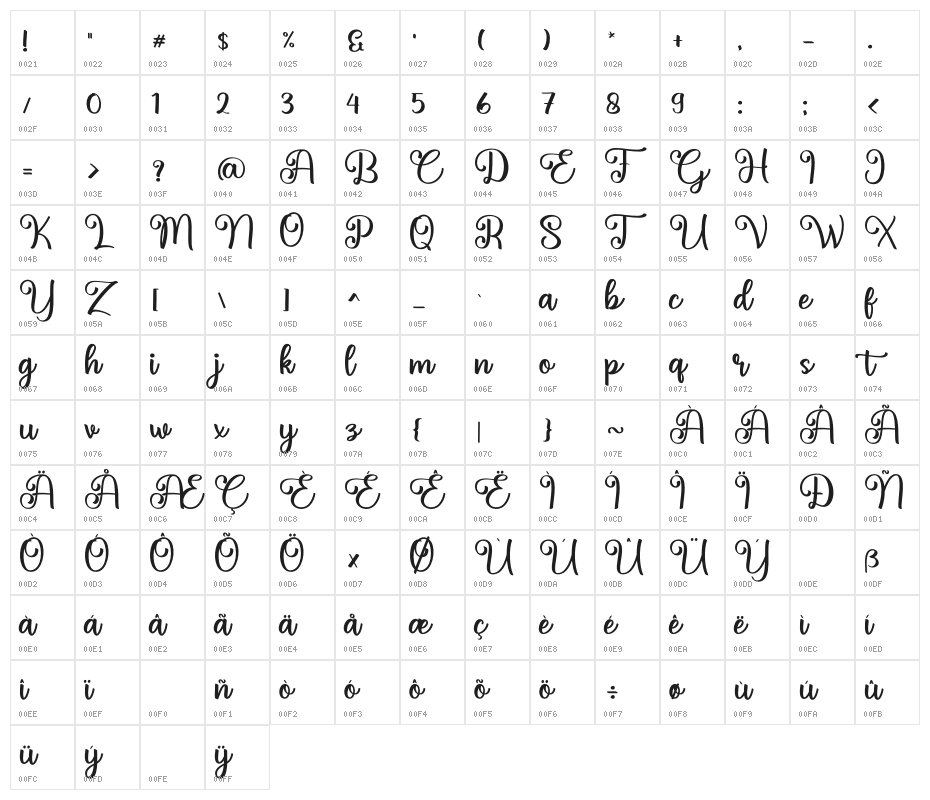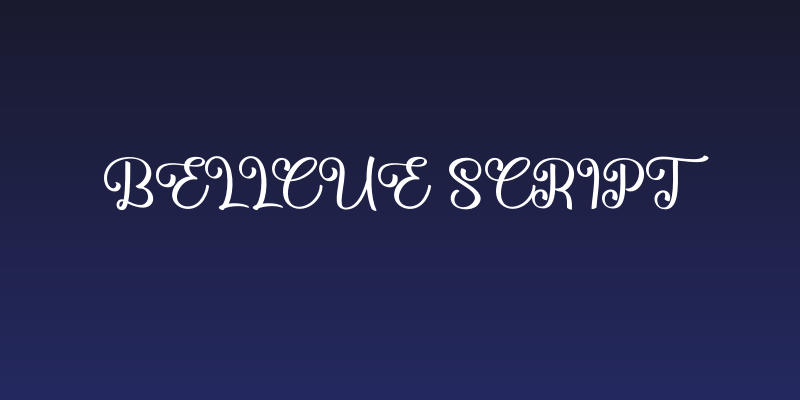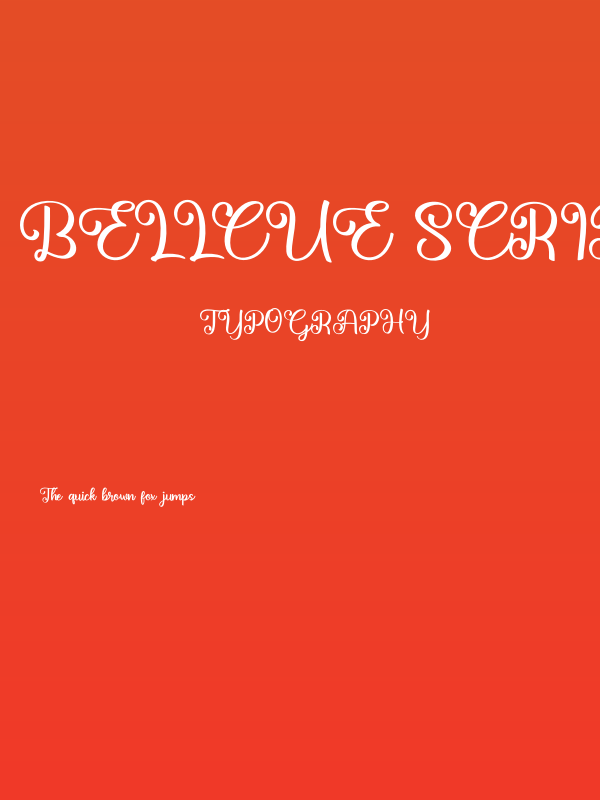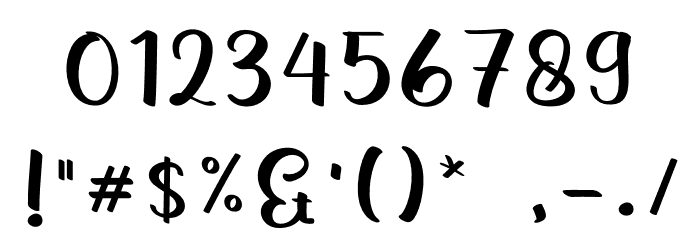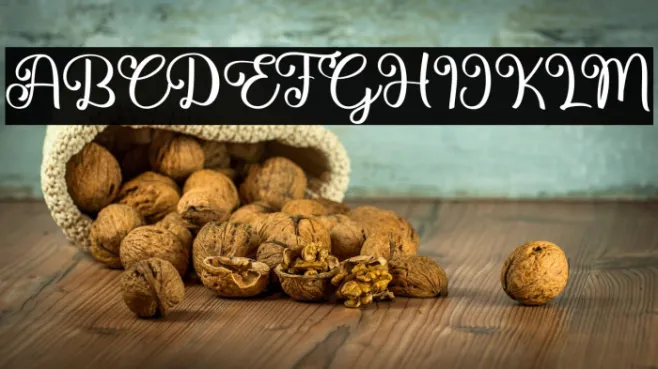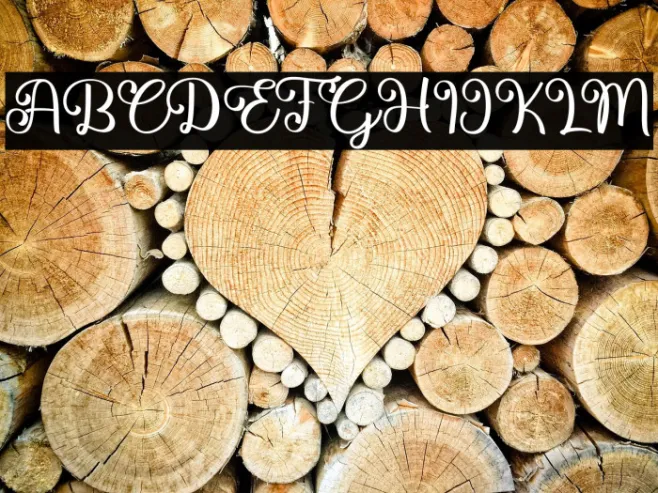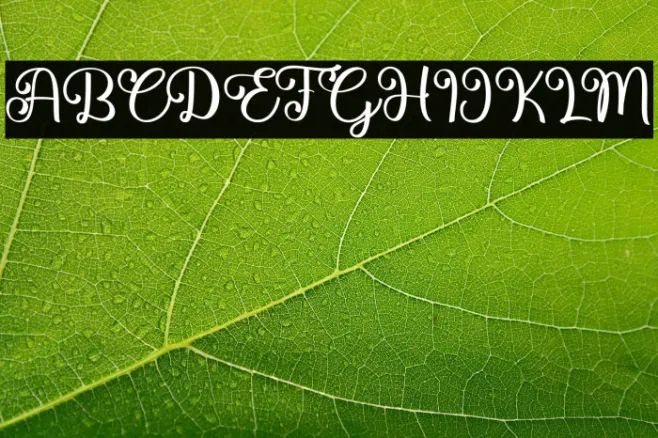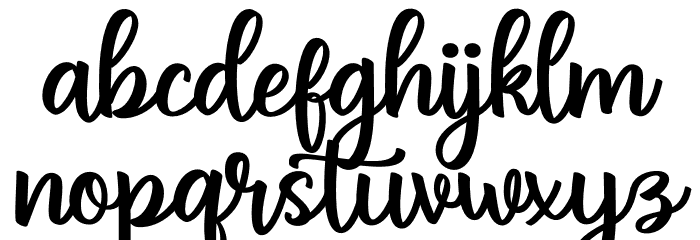
Bellcue Script Font
Bellcue Script Description
This script font exudes elegance and fluidity, characterized by its flowing, cursive style. The uppercase letters are ornate, with intricate loops and swirls that add a touch of sophistication. The lowercase letters maintain a consistent flow, enhancing readability while retaining a stylish flair. The numbers are bold and clear, matching the overall aesthetic of the font. Special characters are thoughtfully designed, integrating seamlessly with the alphabet. This font's artistic nature makes it ideal for creative projects that require a personal touch.